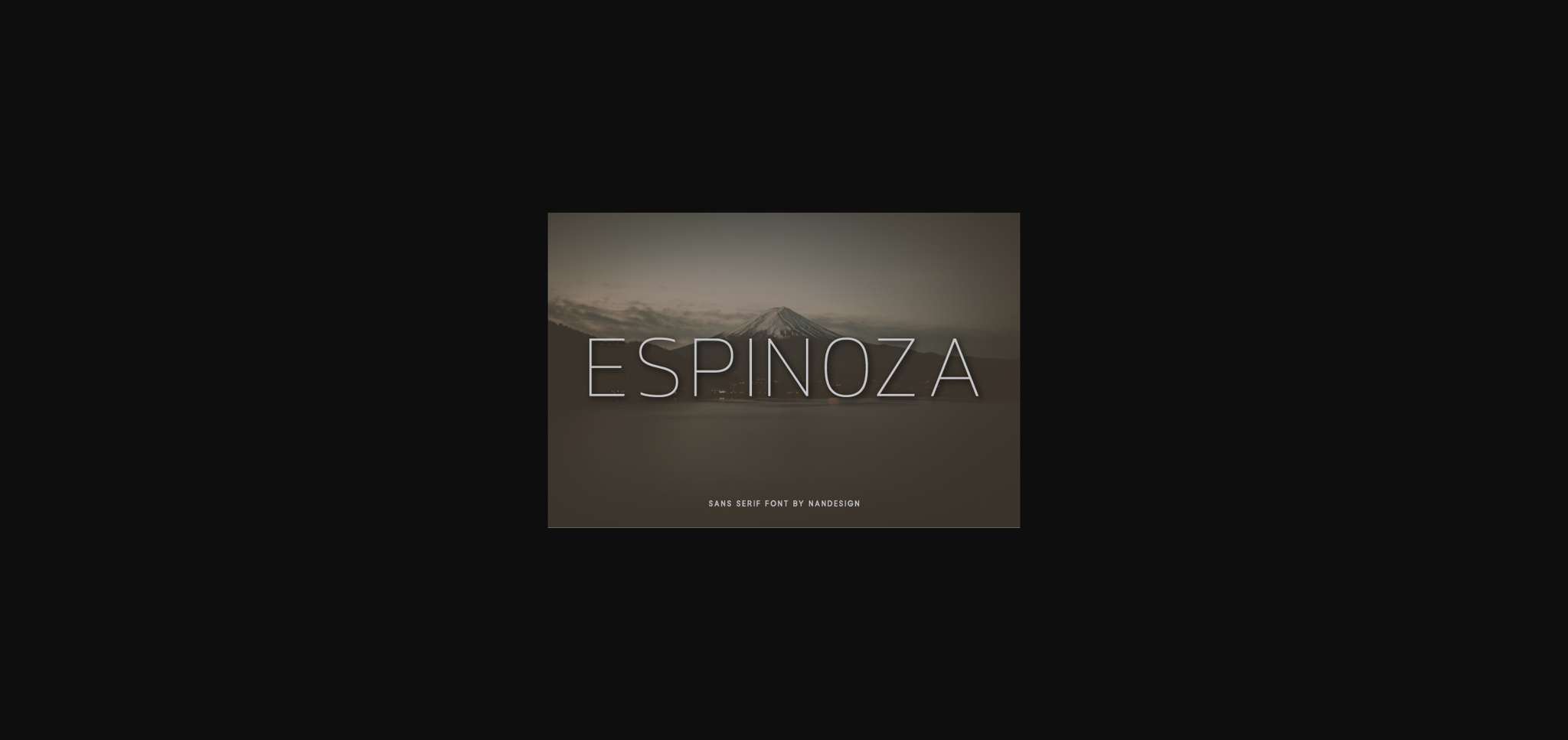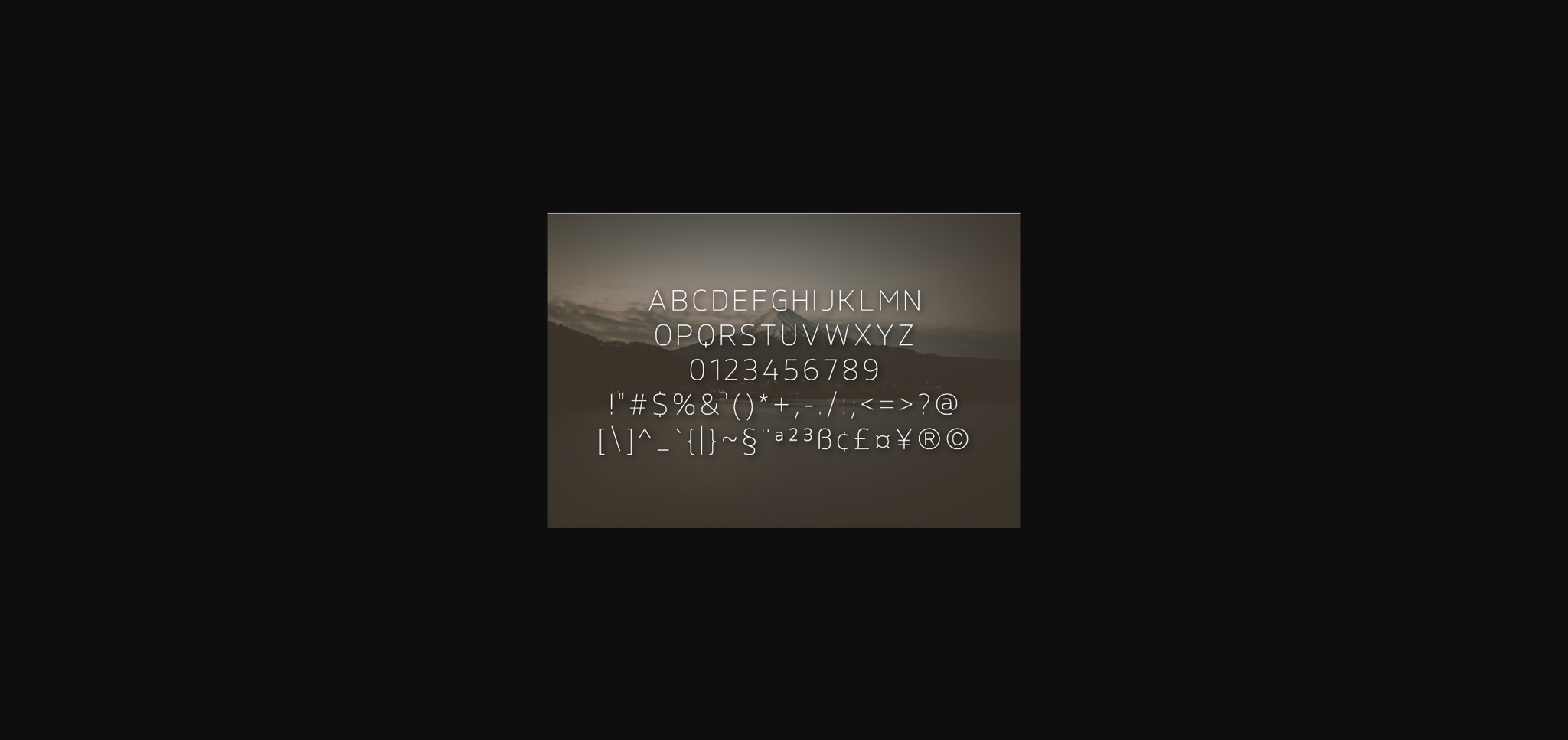
About Espinoza Font
Espinoza is a classy, beautiful sans serif font. Carefully designed to become a true favorite, Espinoza will look spectacular on a wide range of projects!